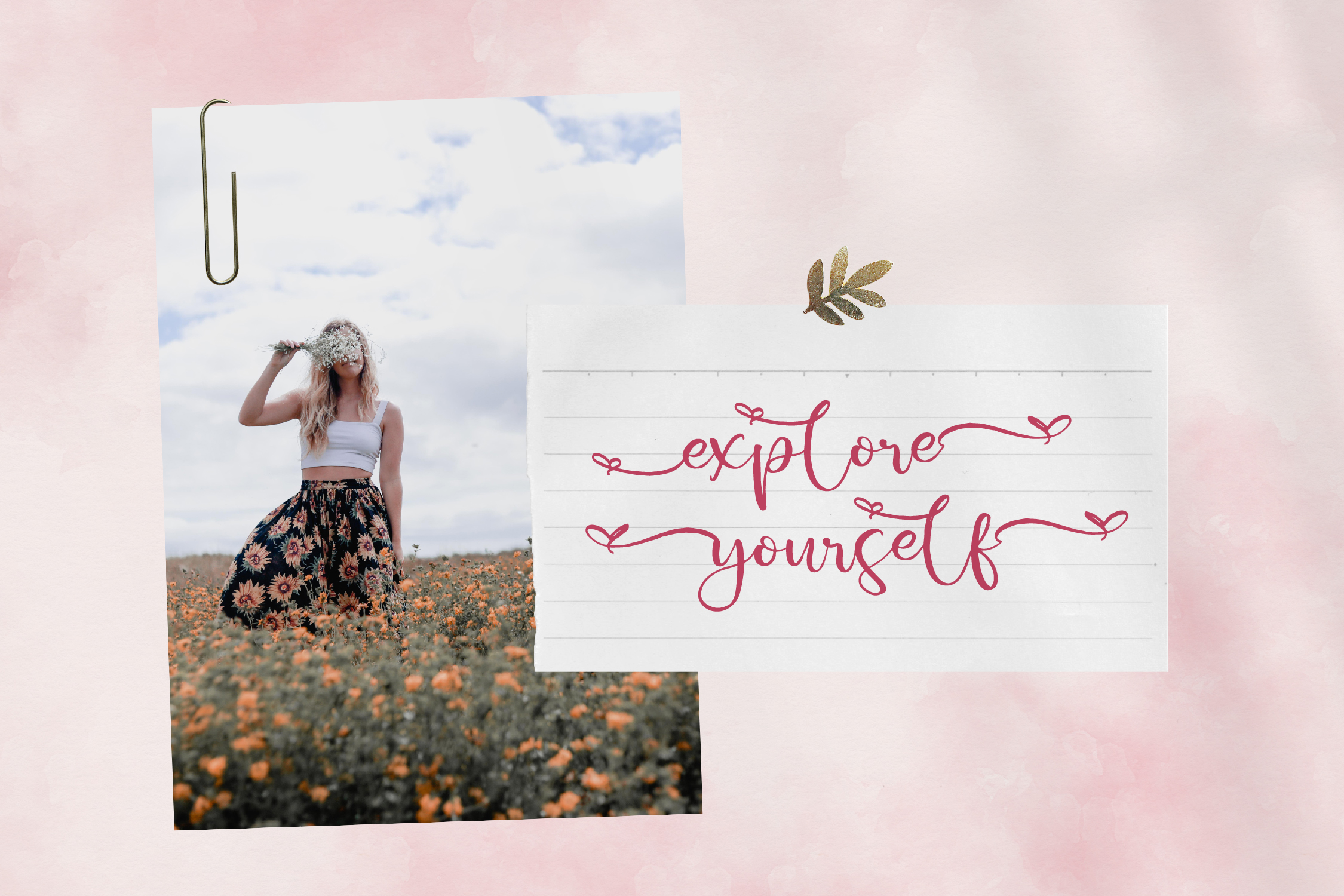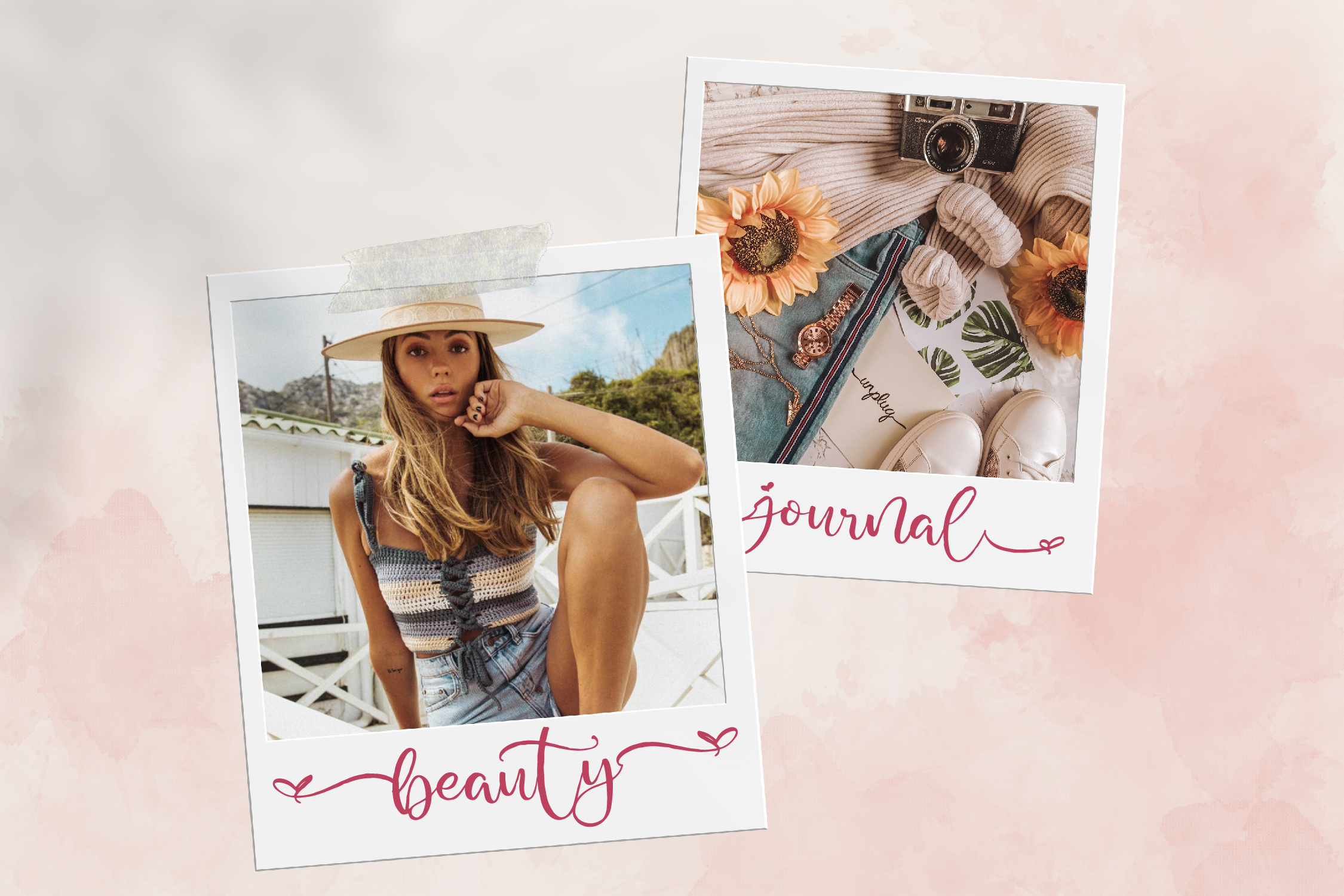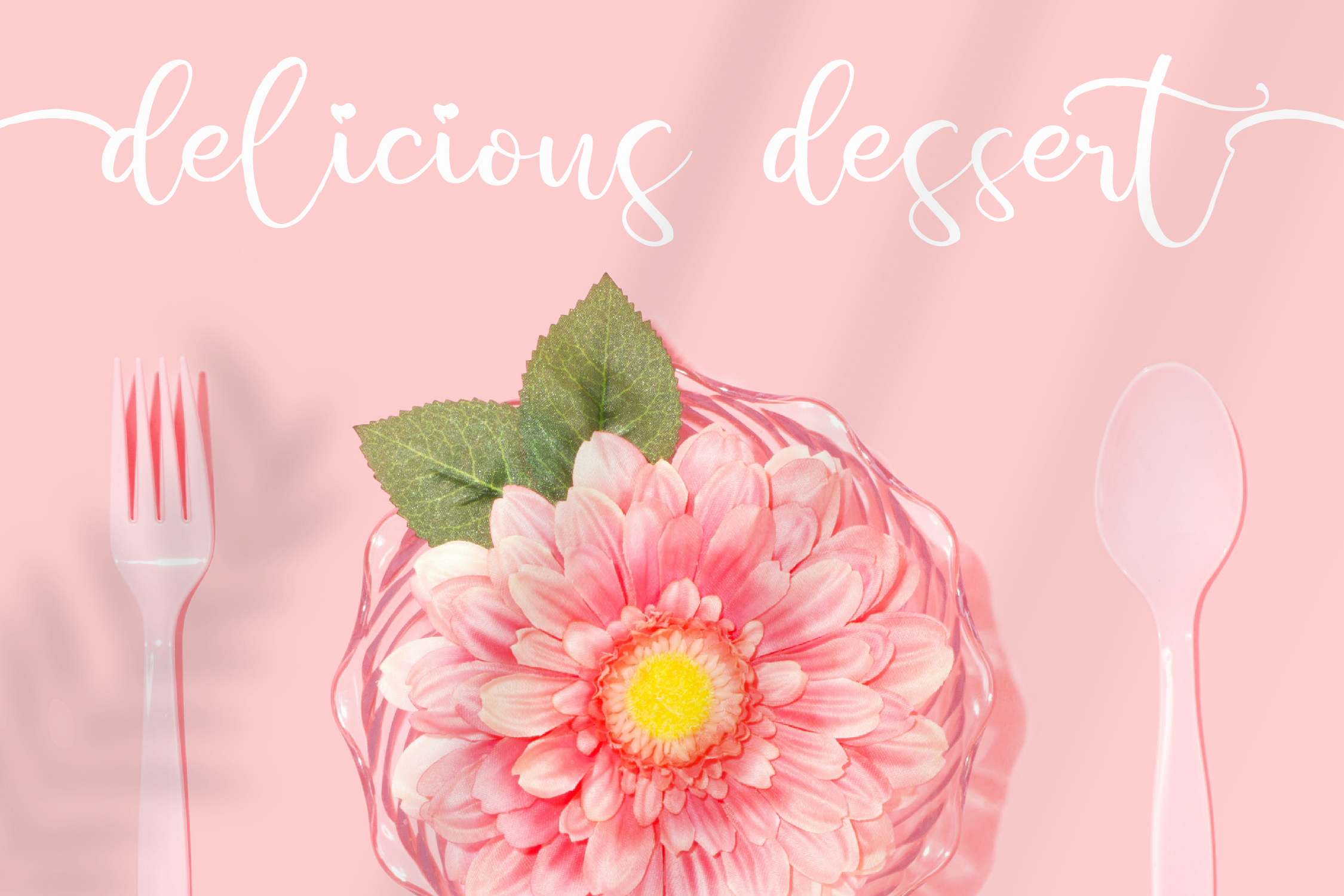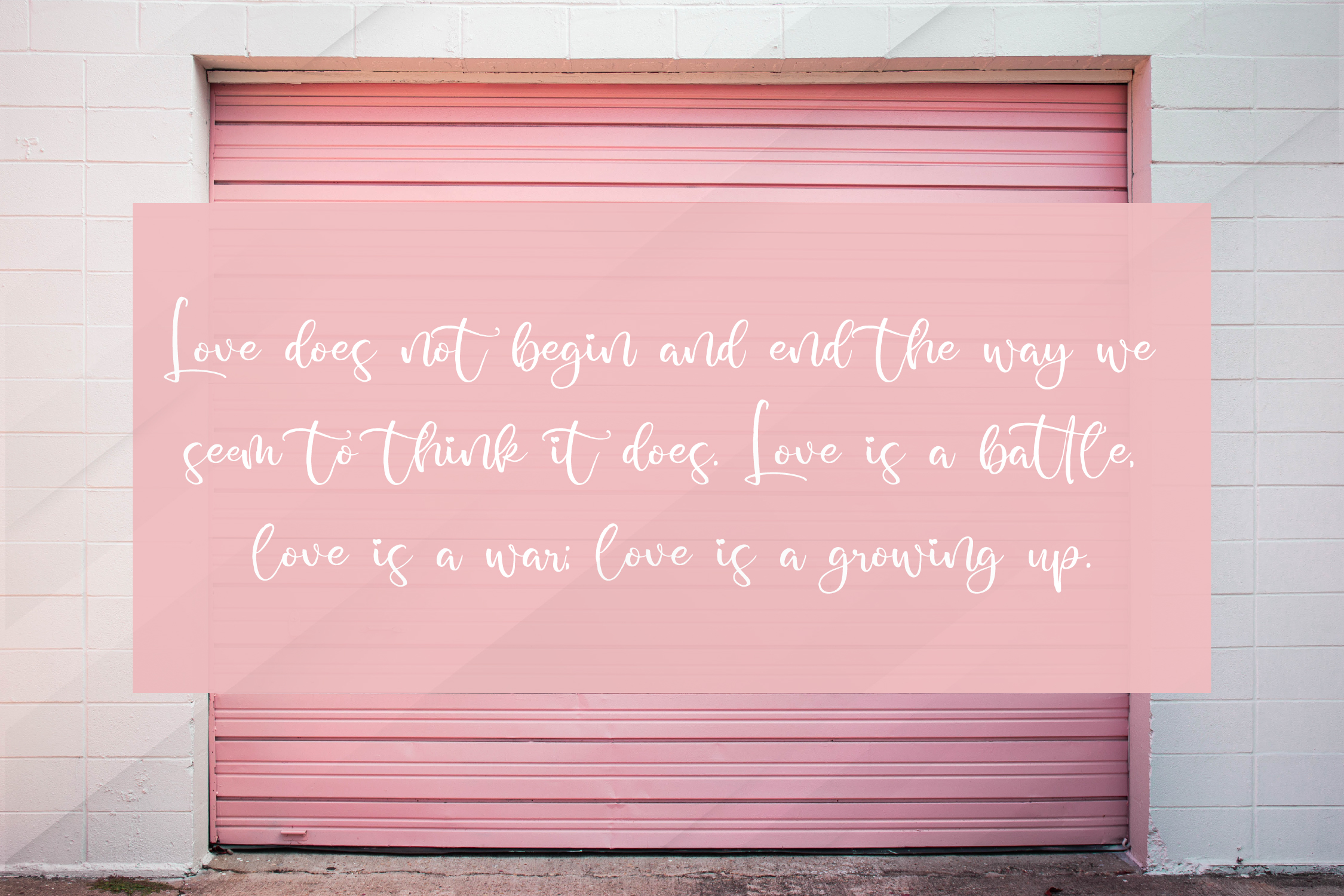
casandra belinda Font
casandra belinda Font – Beauty Handwritten Font, from Glorytype Studio, is a beautiful script font, suitable for any projects such as: logos, branding projects, homeware designs, product packaging, mugs, quotes, posters, shopping bags, t-shirts, book covers, name card, invitation cards, greeting cards, label, photography, watermark, special events, and all your other lovely projects that need a beautiful script taste.